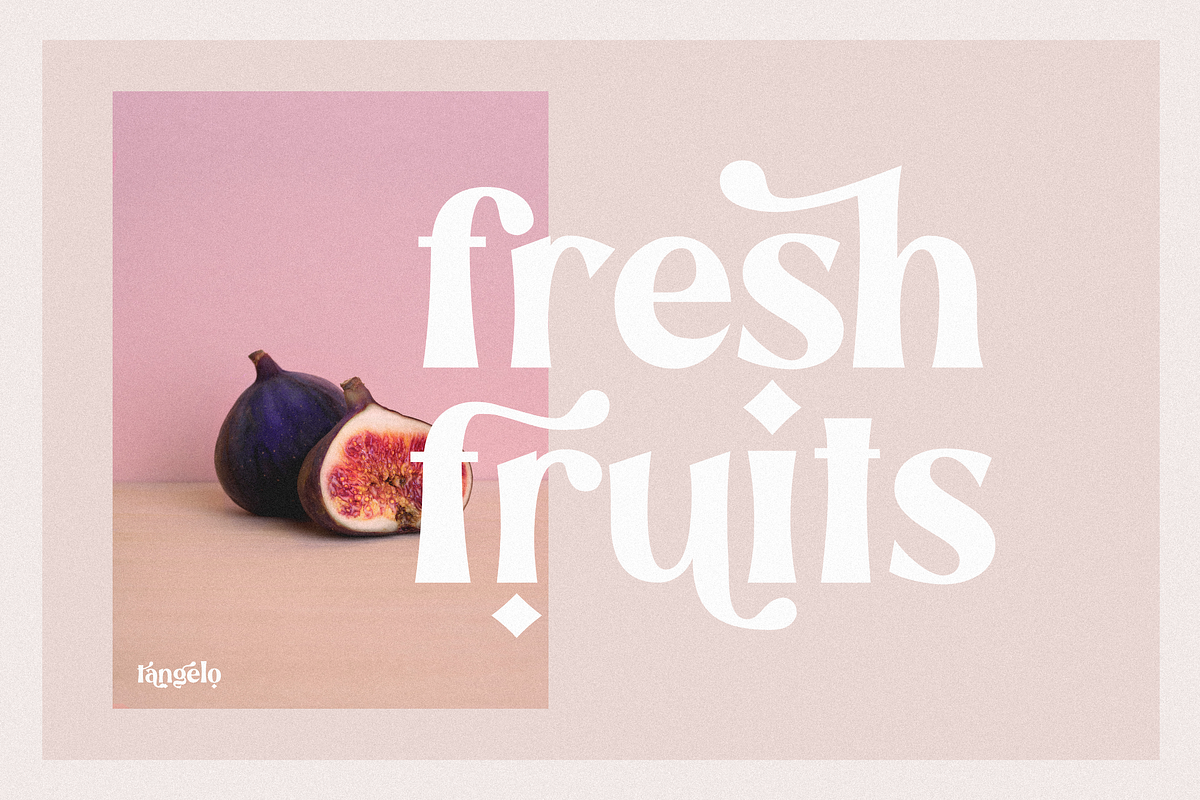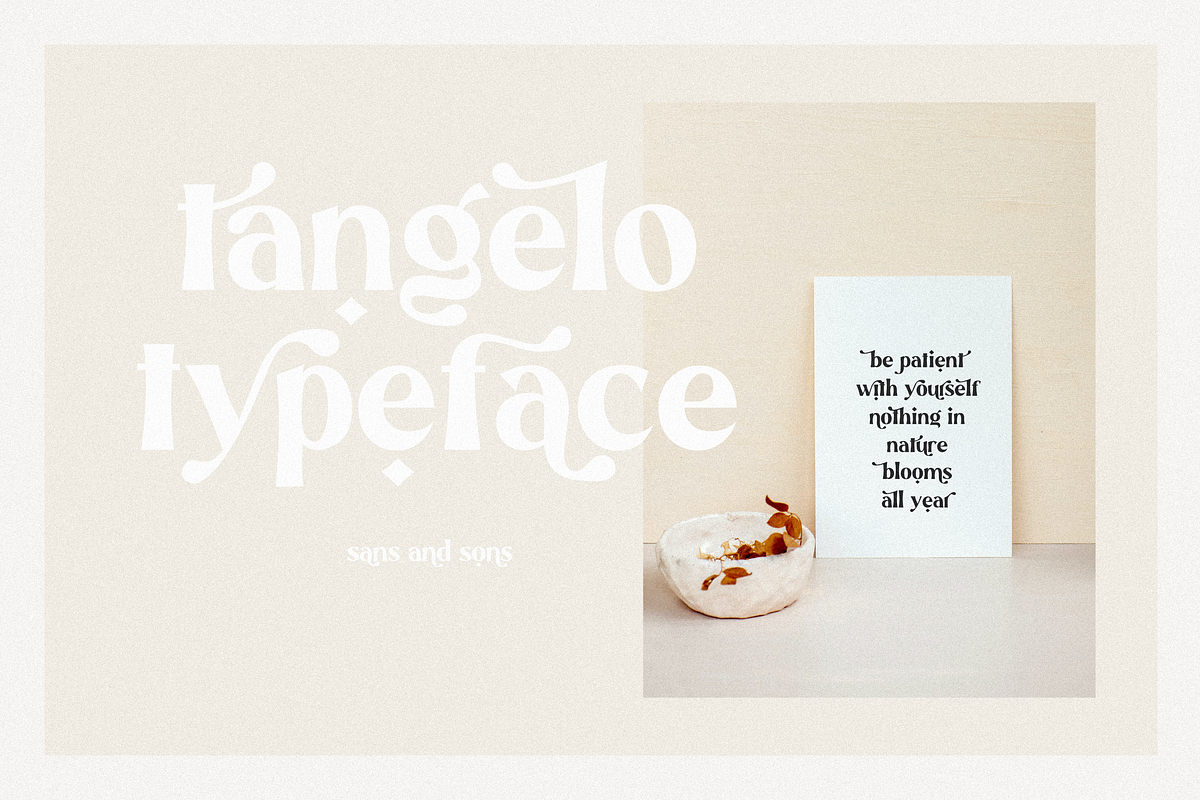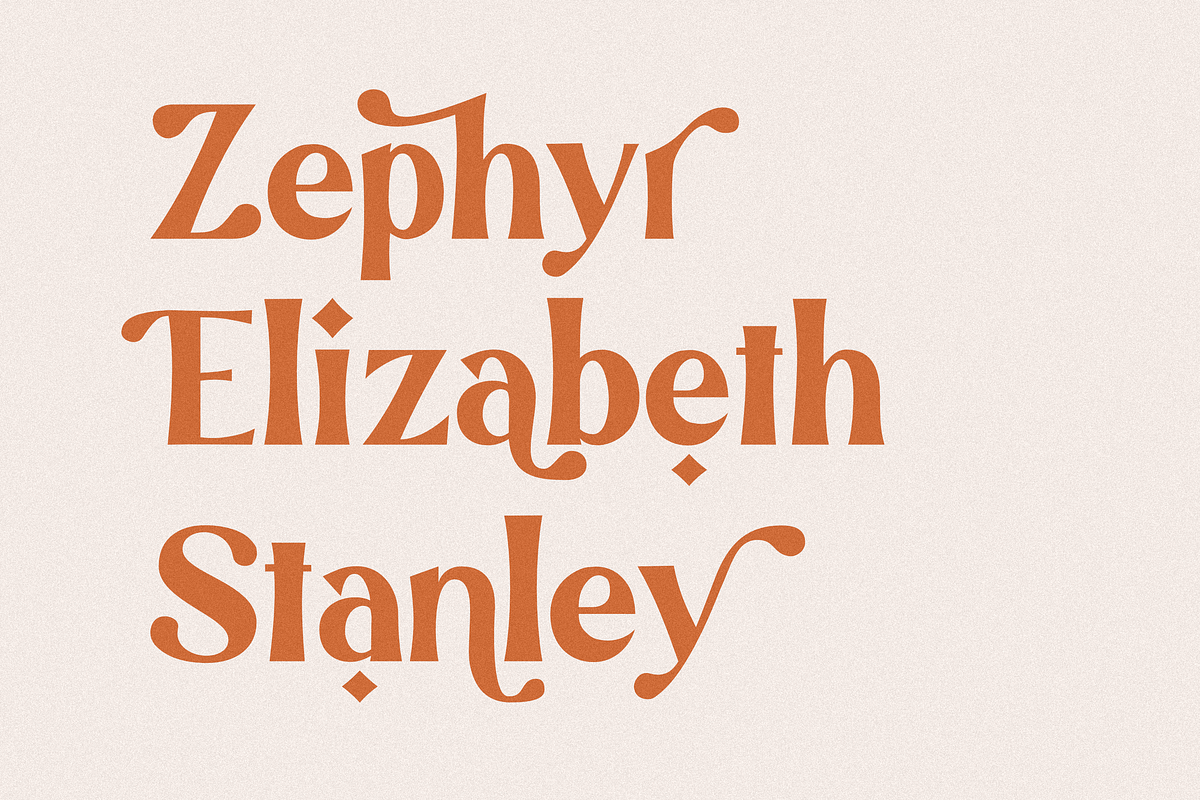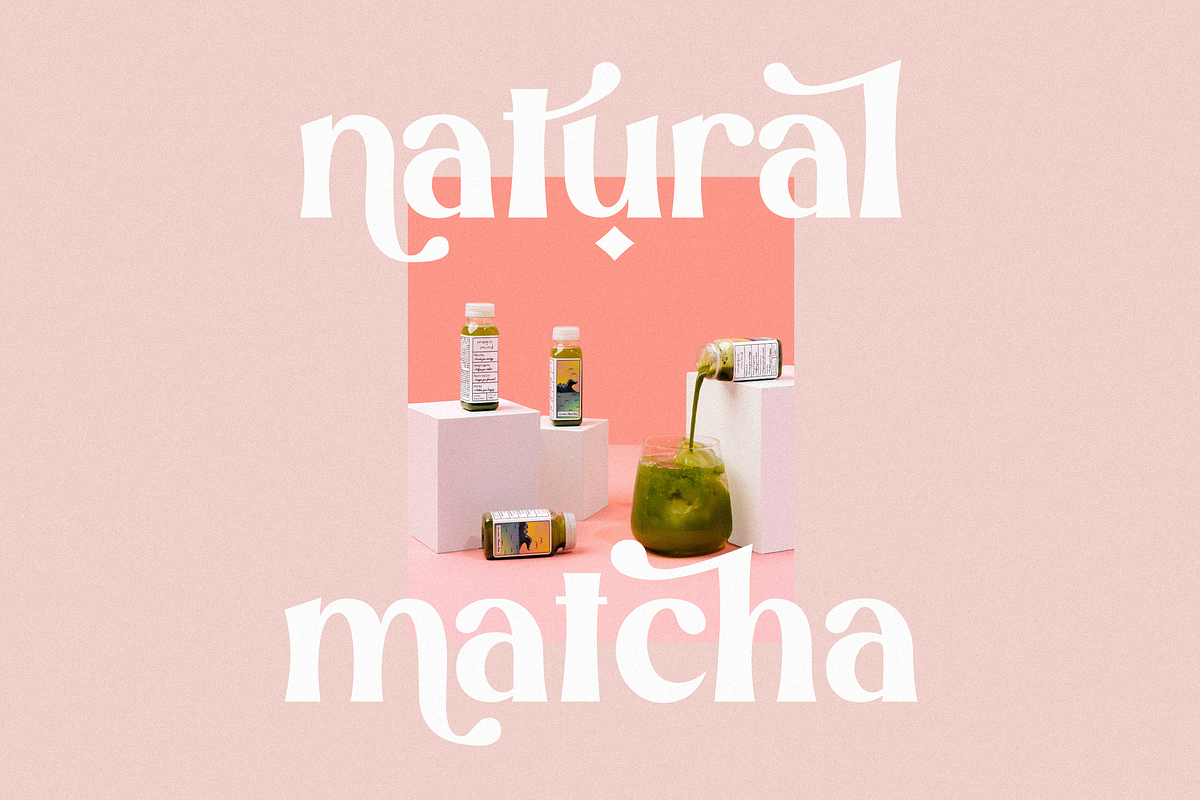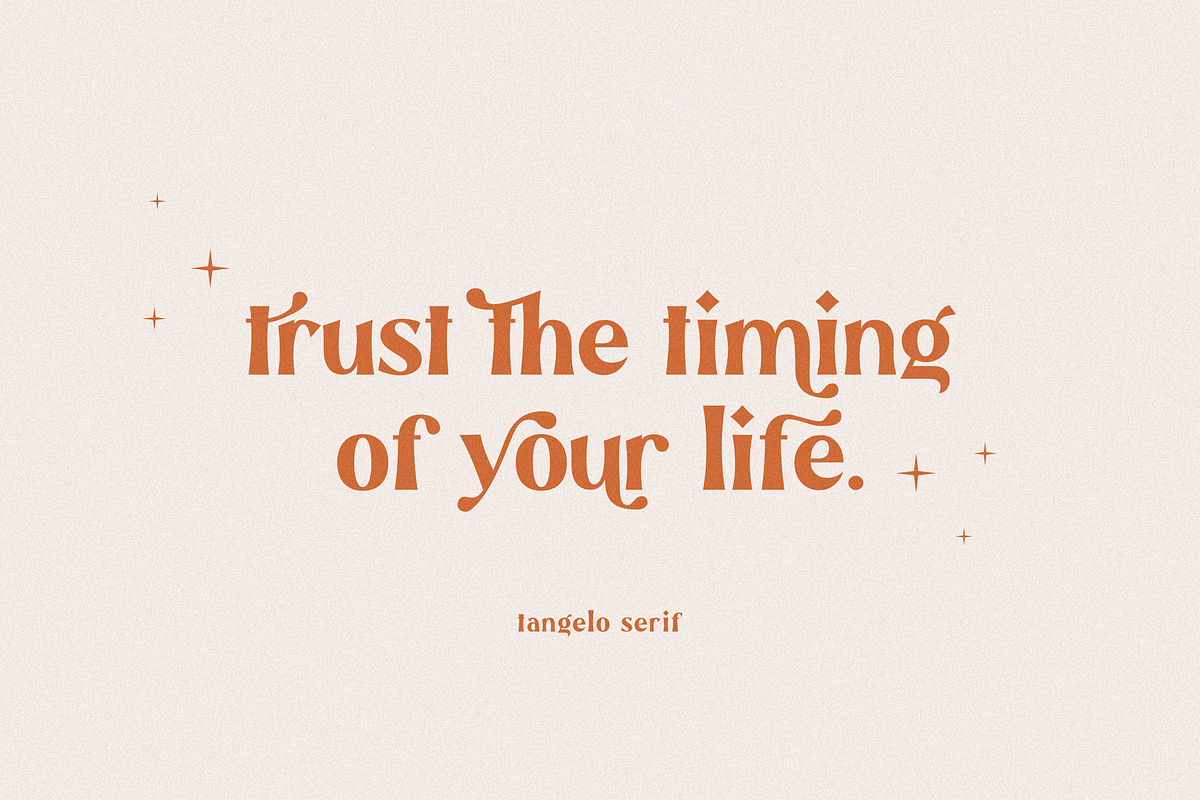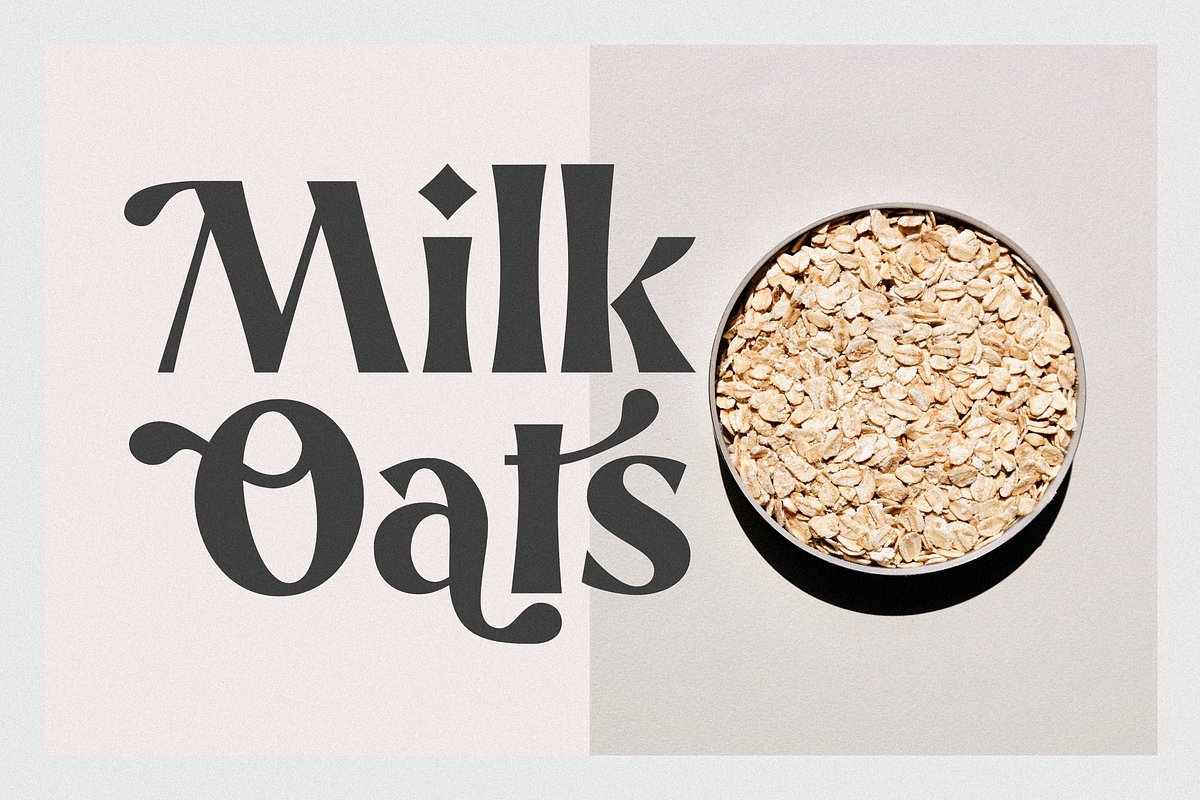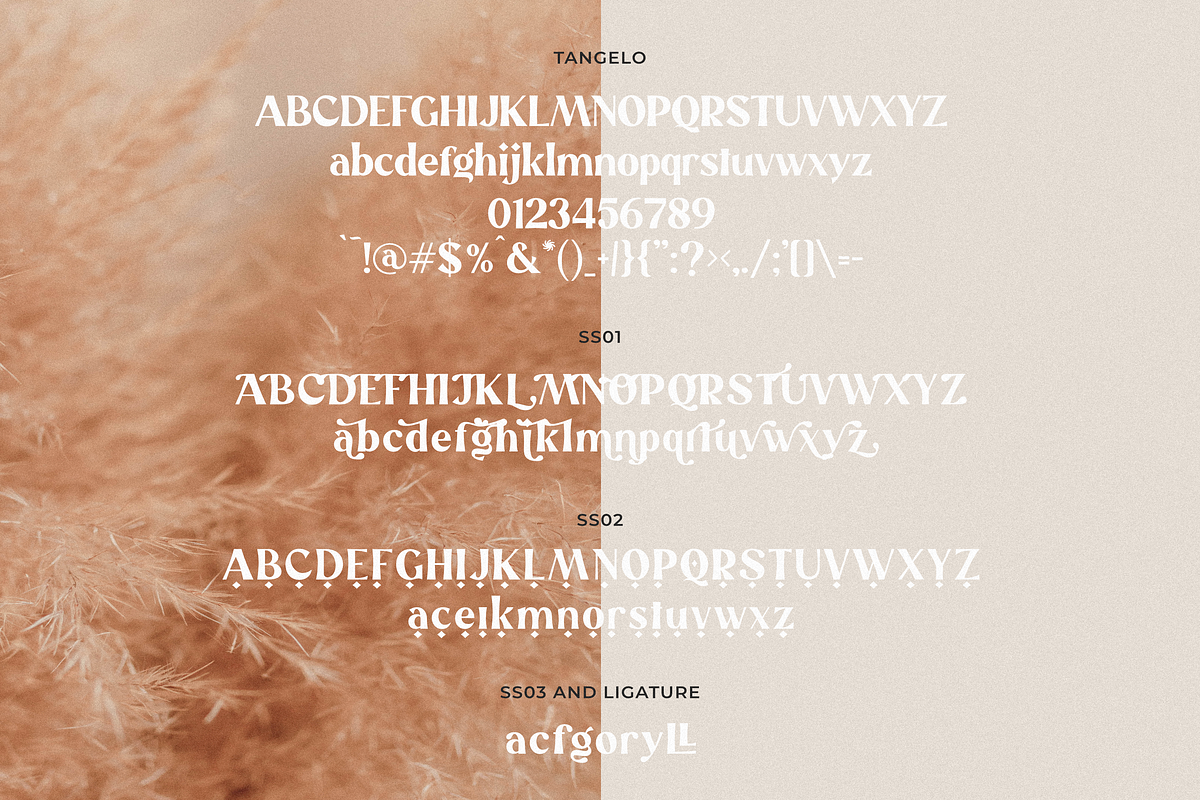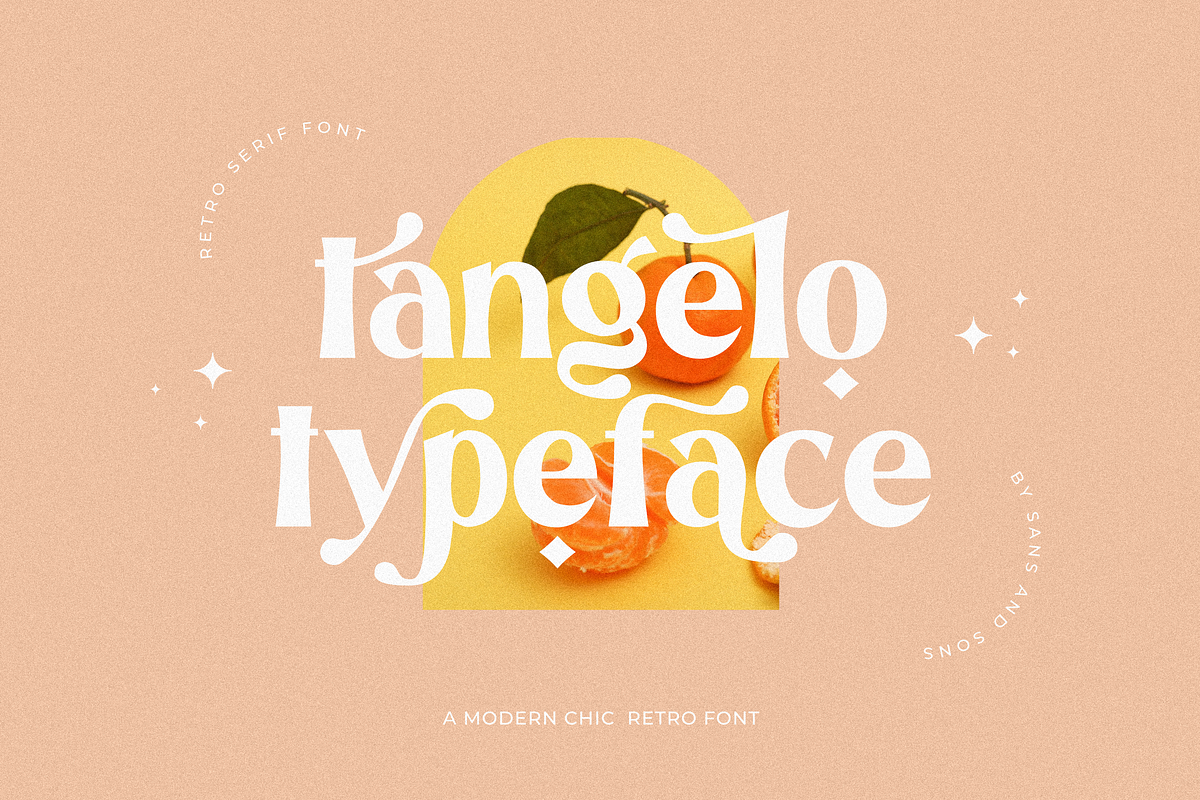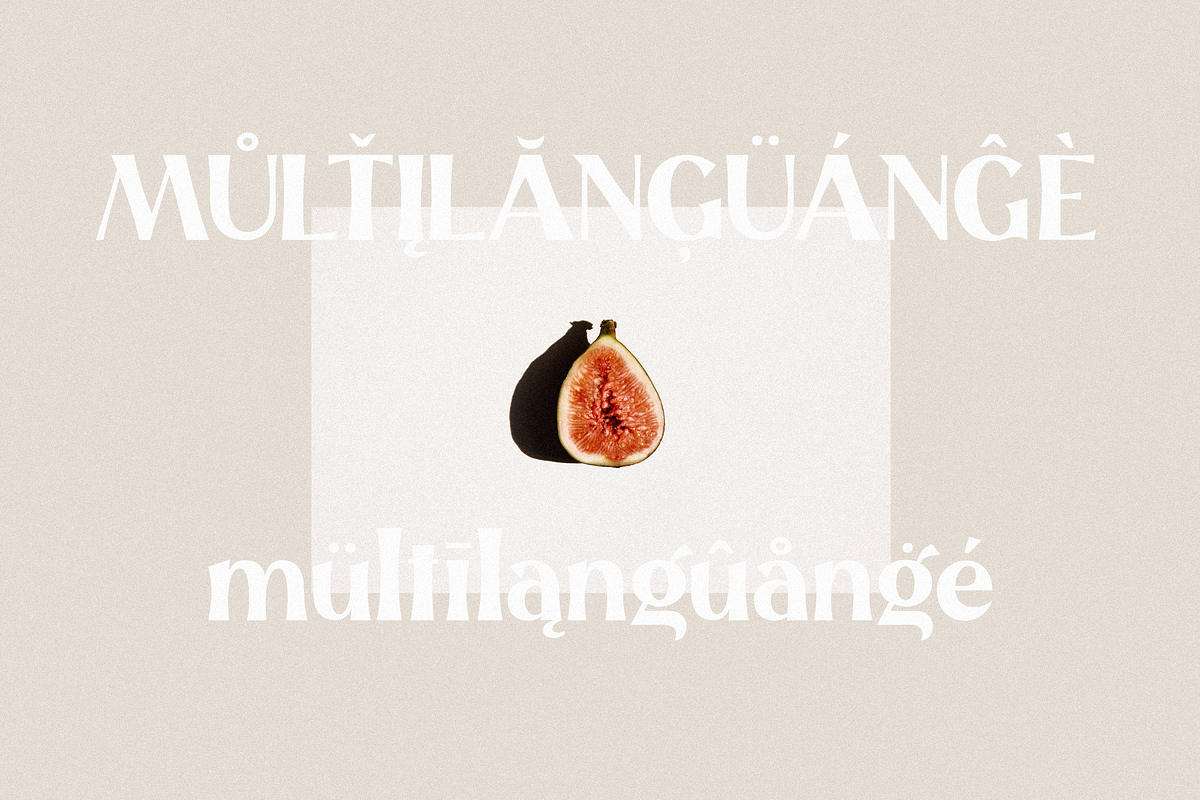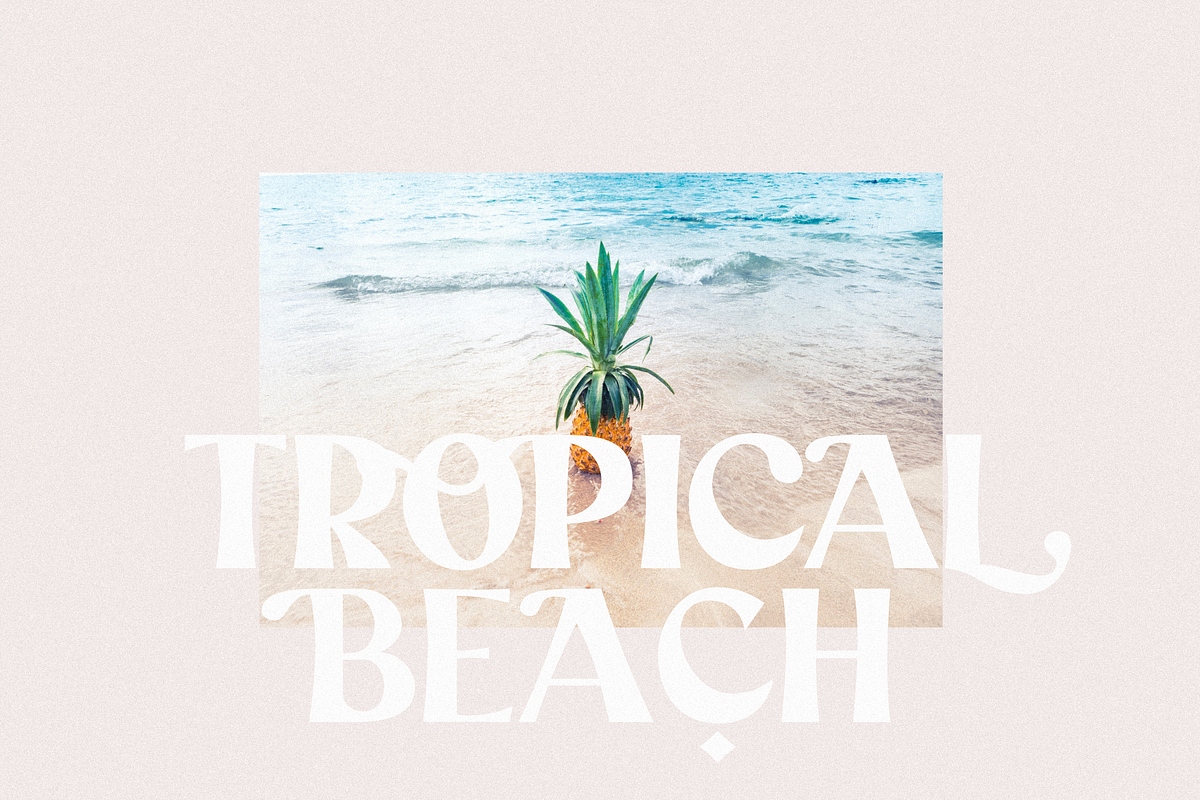
Tangelo - Retro Serif
Tangelo - Retro Serif Font by Sans and Sons
introducing our new "Tangelo" Modern Retro with Handdrawn Style is perfect for branding, logos, invitation, master heads, and more.
Tangelo Features :
- Multilanguage